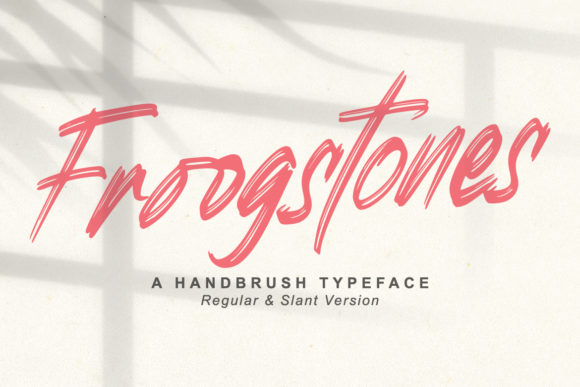
Froogstones Font
Dive into the enchanting world of Froogstones Font, an exquisite script family that will transport your creativity to new heights. Crafted by Almeera Studio, Froogstones is more than just a font; it's an artistic journey that unfolds with every letter.
Picture this: the delicate strokes of Froogstones intertwine like a whisper of the wind, carrying your words with elegance and charm. Its beautifully light lettering dances across your designs, adding a touch of magic to every creation.
With Froogstones, the possibilities are endless. Unleash your imagination and let your words blossom into breathtaking invitations, logos that radiate personality, and social media posts that capture attention. Let Froogstones be your canvas, where your creativity takes center stage.
Froogstones is not merely a collection of letters; it's an experience. An experience that transforms ordinary words into captivating expressions of art. Its enchanting curves and swirls evoke a sense of nostalgia, adding a timeless charm to your designs.
Imagine the joy of creating wedding invitations that feel like whispered promises, branding that speaks with a distinct voice, and social media content that captivates audiences with its unique flair. Froogstones is the key to unlocking your creative potential and leaving a lasting impression on the world.
So, embark on this artistic adventure with Froogstones Font, where each glyph is a brushstroke of beauty and every word a masterpiece. Let your creativity soar, knowing that Froogstones will be your faithful companion, enhancing your designs with its enchanting allure.